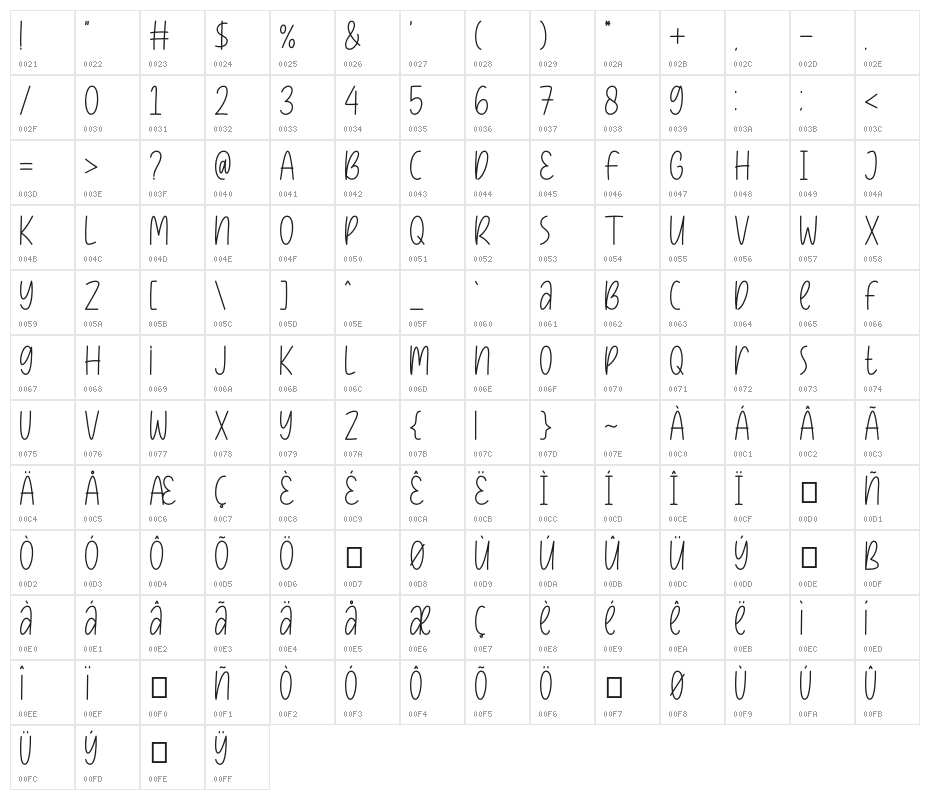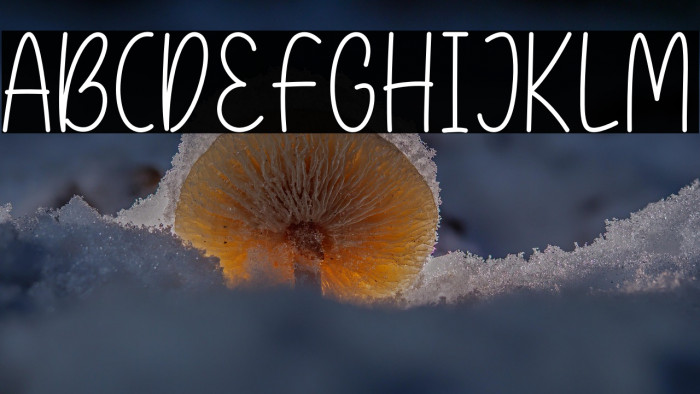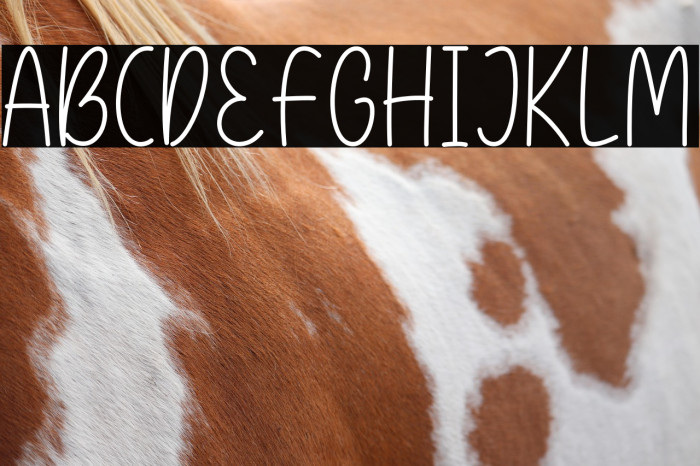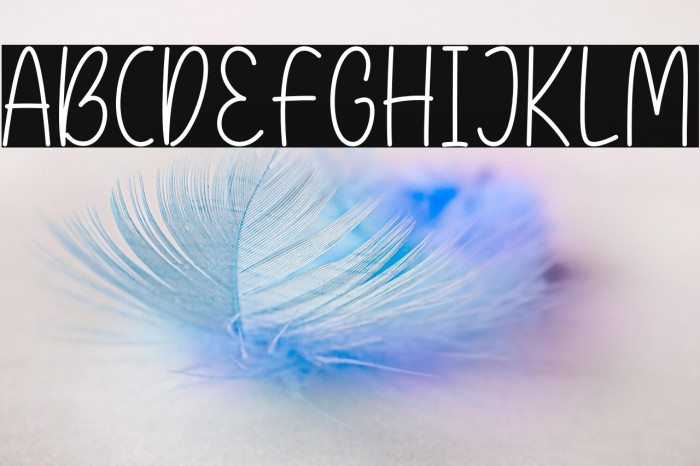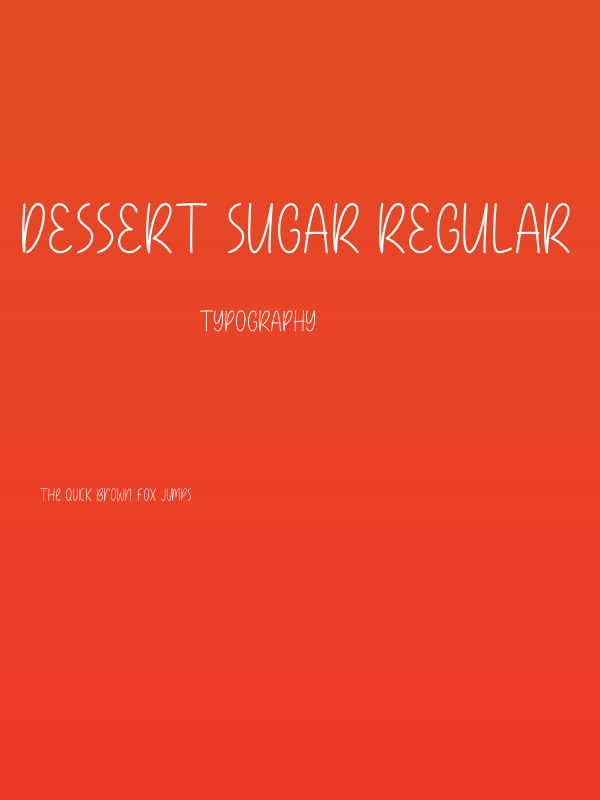
Dessert Sugar Regular Font
Dessert Sugar Regular Description
This font features a playful and casual handwritten style, characterized by its tall, narrow letters with a slight slant. The strokes are consistent in width, giving it a clean and modern appearance. The uppercase and lowercase letters maintain a uniform height, contributing to its legibility. The numbers and special characters are designed to match the overall style, ensuring a cohesive look across all text elements. Its simplicity and charm make it suitable for a variety of design projects that require a friendly and approachable feel.
| Use Case | Headlines, Logos, Social media graphics |
| Proposed Projects | Ideal for greeting cards, invitations, social media graphics, and casual branding projects. |